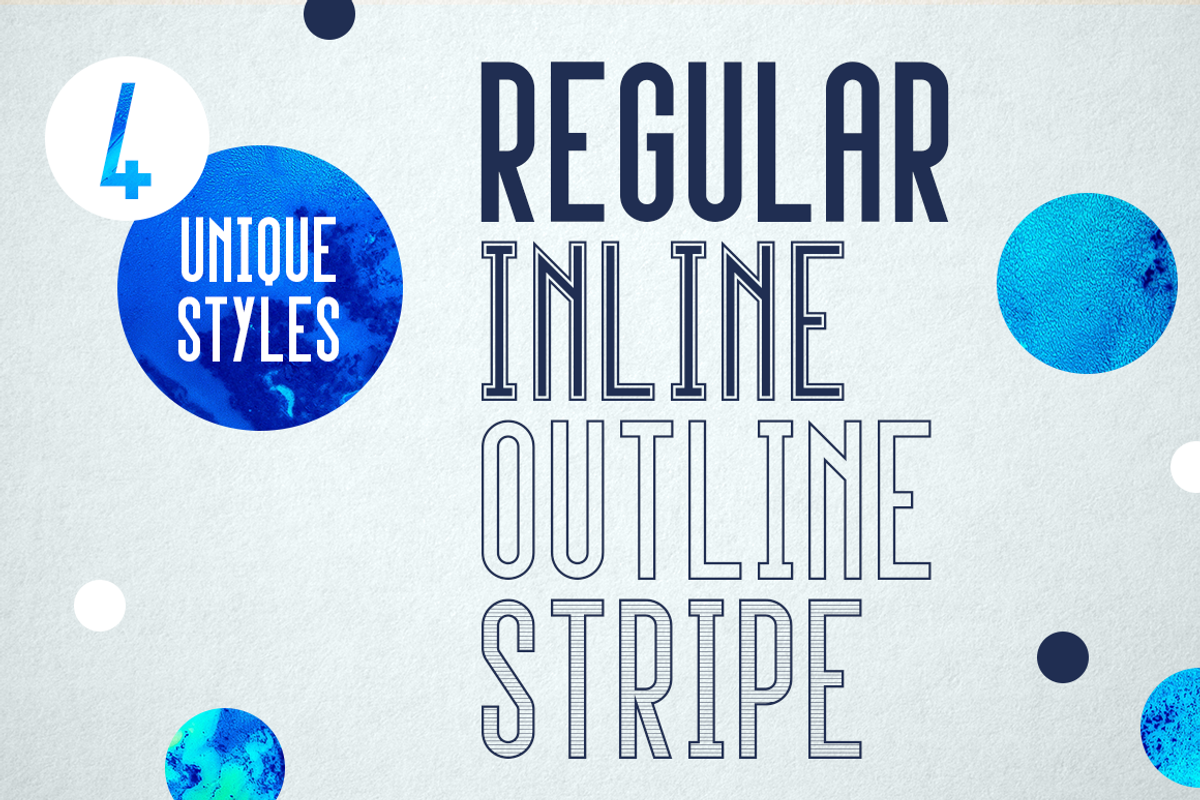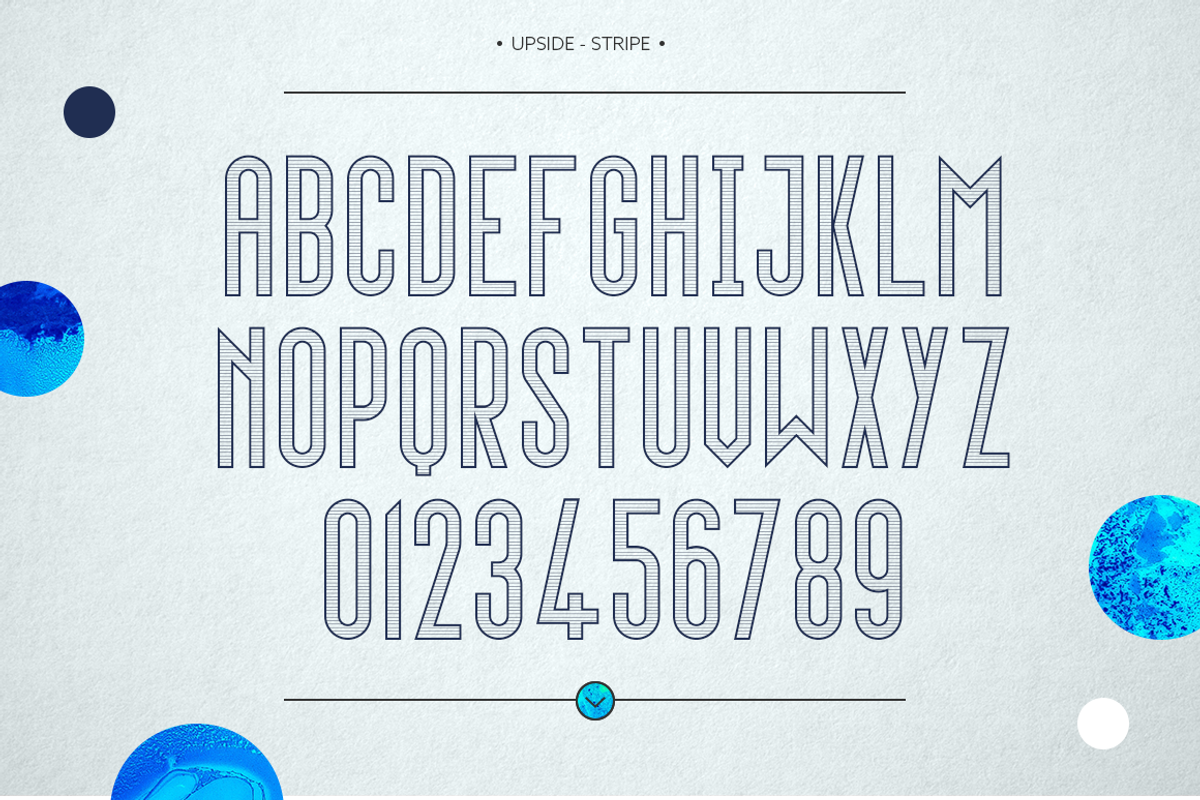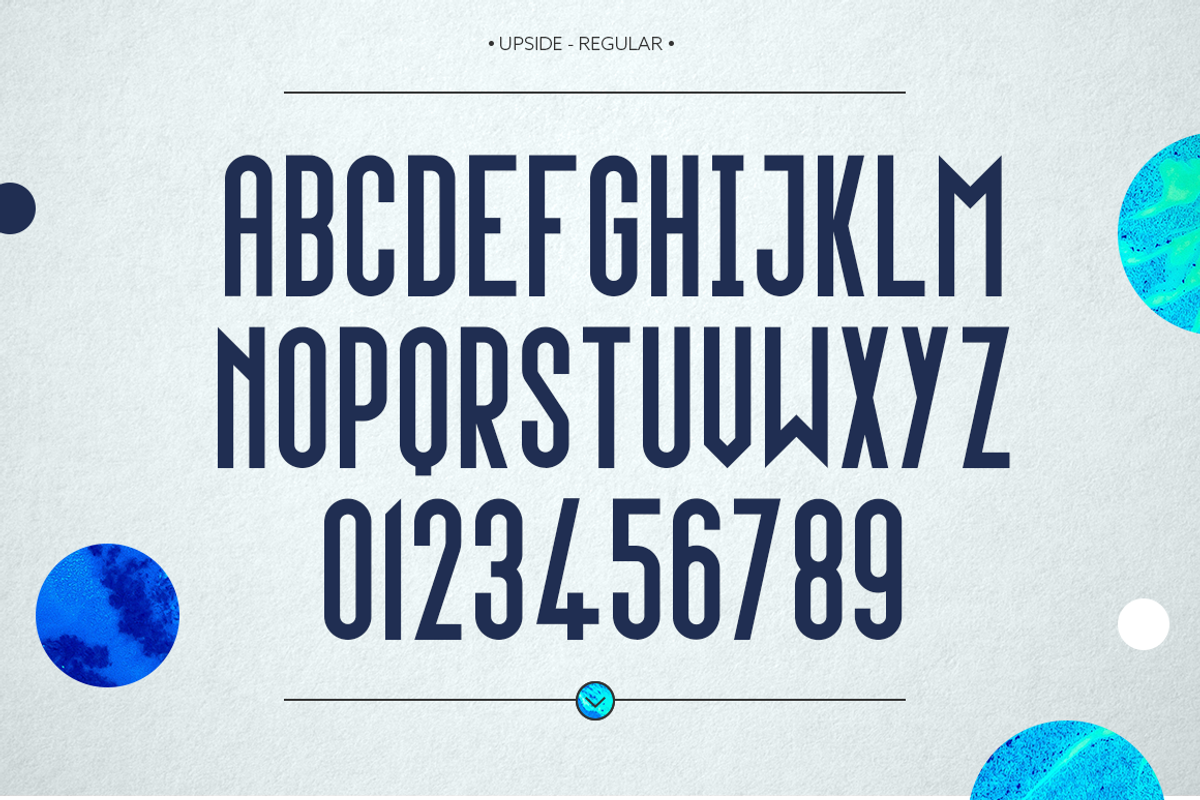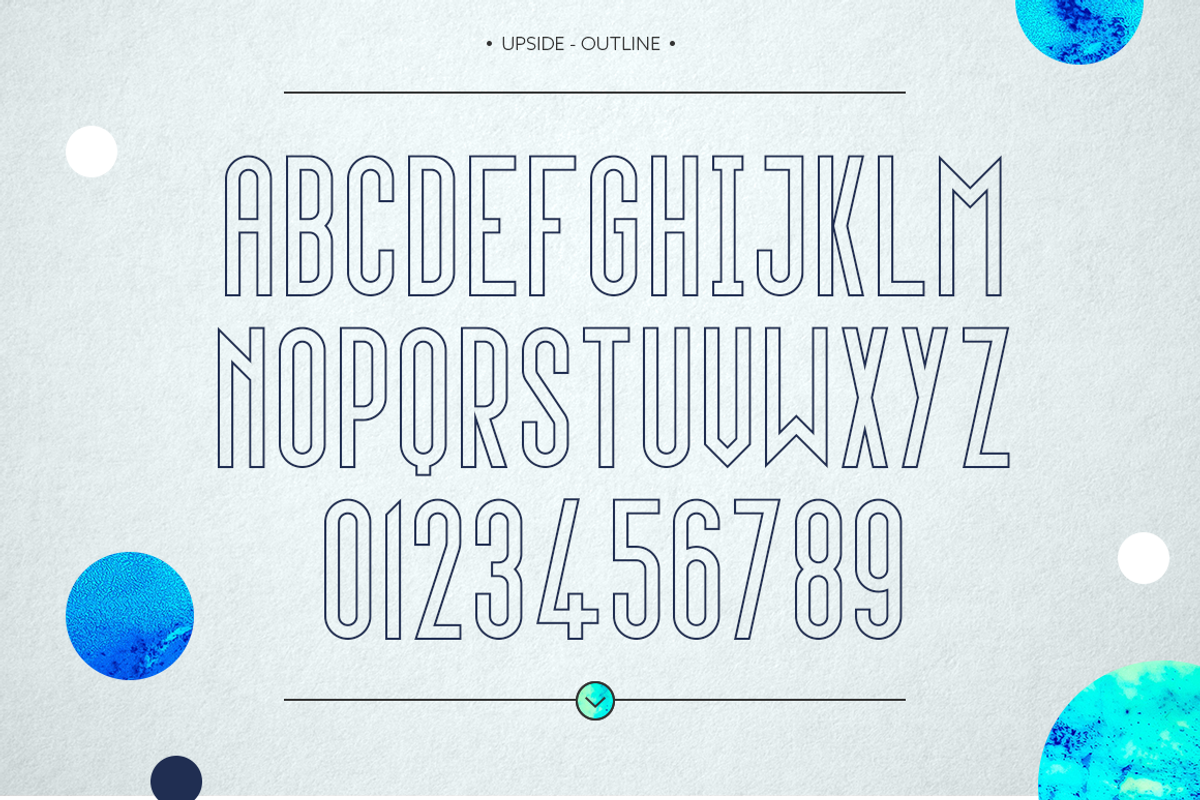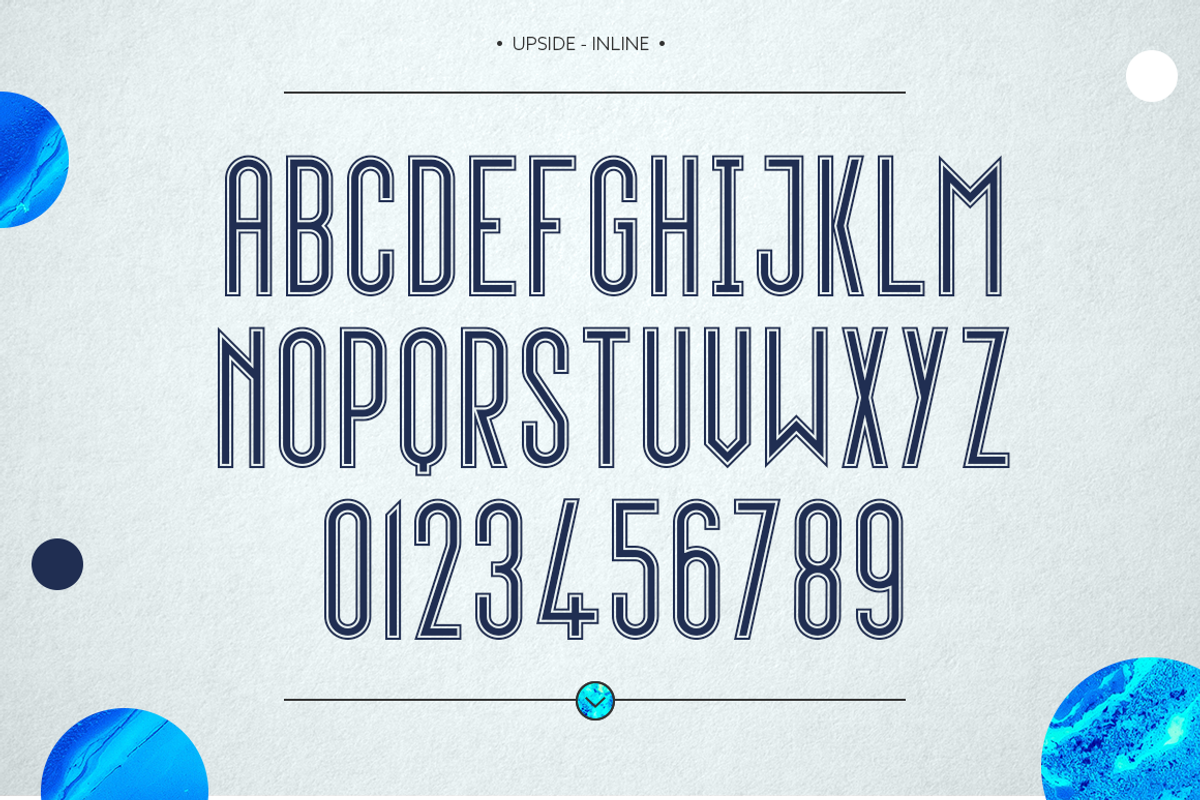
Upside - Complete Family (4 fonts)
Upside is a condensed sans serif font designed for use in high impact displays and headings. The typeface has a geometric design with a tall cap height. Best used at large sizes the Upside family contains four fonts - Regular (filled), Inline, Outline, and Striped.
- Best used at large sizes the Upside family contains four fonts - Regular (filled), Inline, Outline, and Striped.